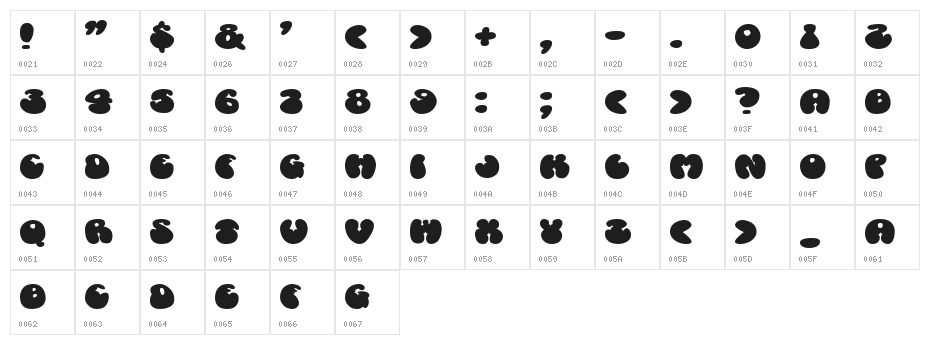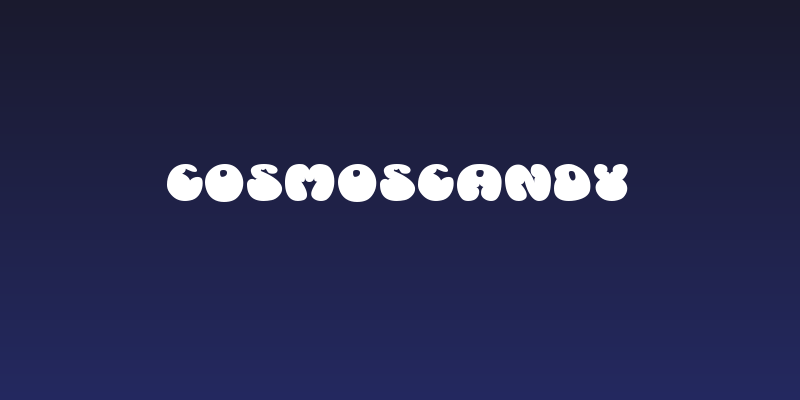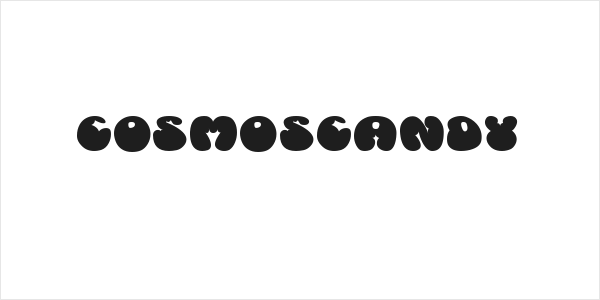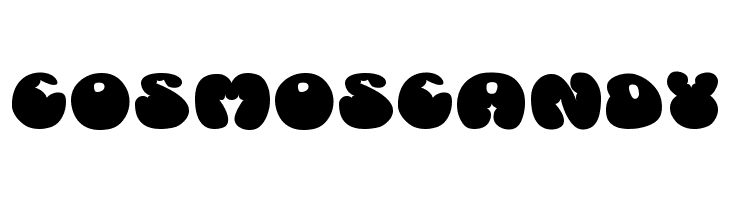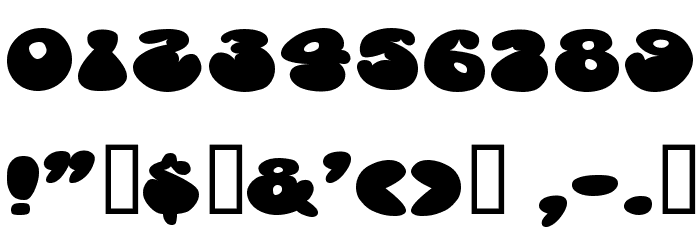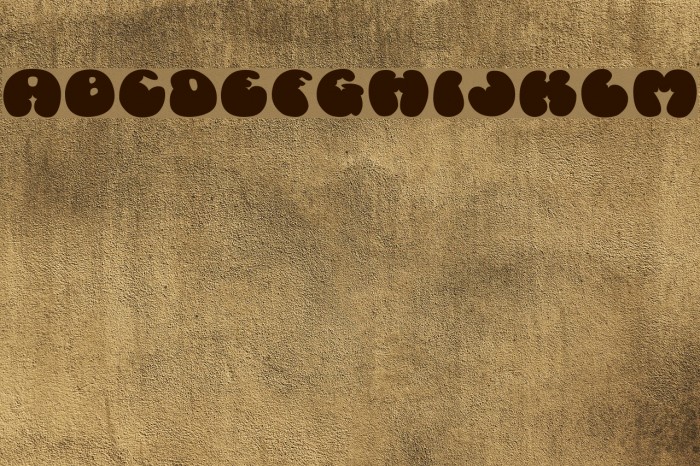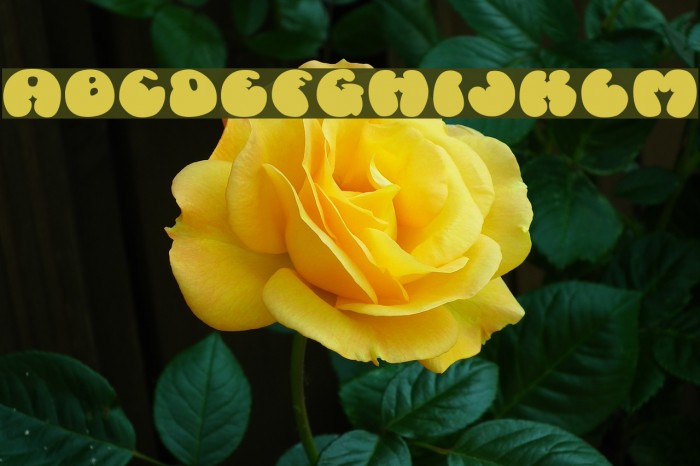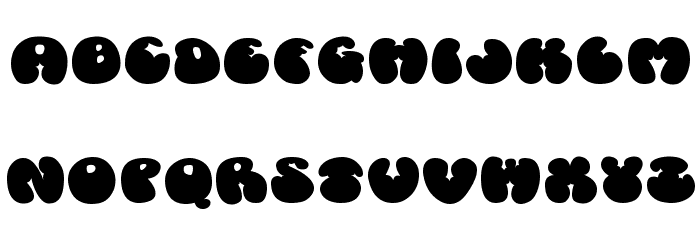
Cosmoscandy Font
Cosmoscandy Description
This playful and bold font features rounded, bubble-like characters that exude a sense of fun and whimsy. The letters are thick and have a consistent weight throughout, creating a strong visual impact. The circular shapes and smooth curves give it a friendly and approachable feel, making it ideal for designs that aim to capture attention and convey a sense of joy. The font includes a full set of uppercase and lowercase letters, numbers, and a variety of special characters, all maintaining the same bubbly aesthetic. Its unique style makes it stand out, perfect for creative projects that require a touch of personality.
| Overall Style | Playful, Fun, Whimsical |
| Proposed Projects | Ideal for children's books, playful branding, party invitations, and eye-catching posters. |